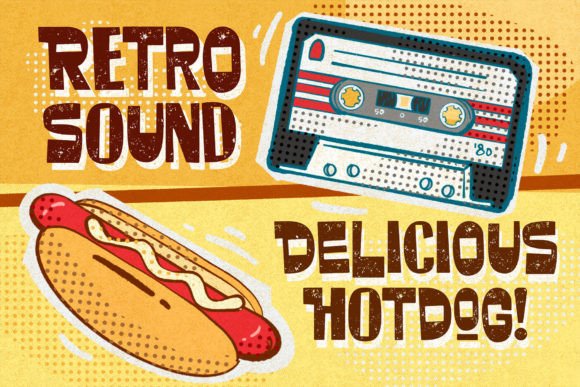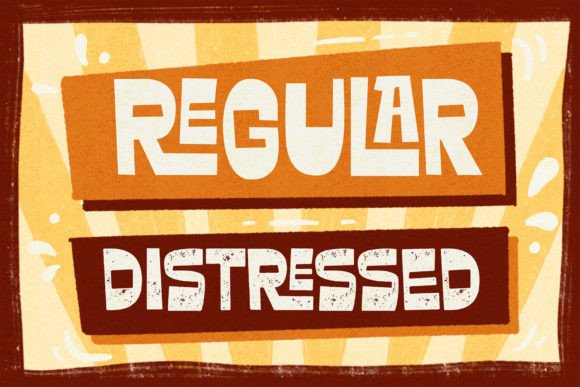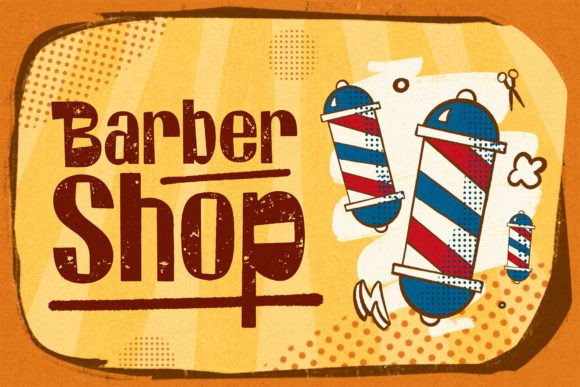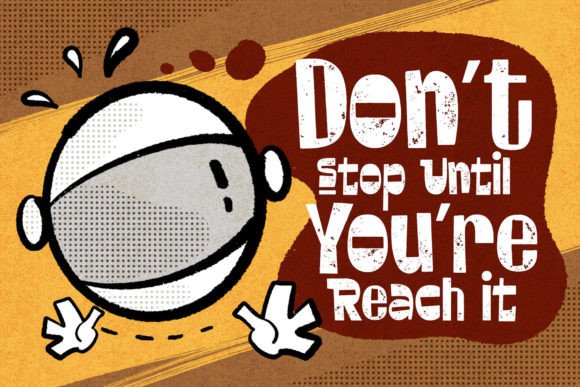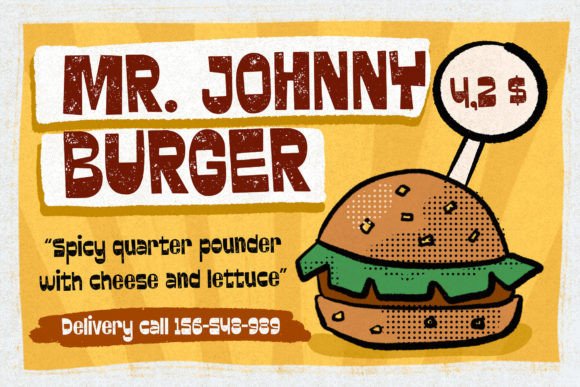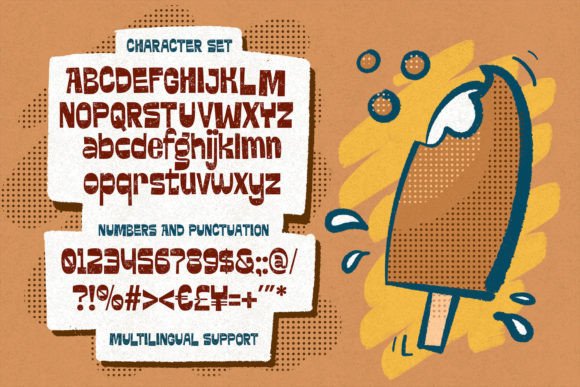
Introduction to Krenzy Crispy Font
Do you remember the excitement of unwrapping a new snack and being immediately drawn to the colorful packaging? The typography on those labels often stands out, doesn’t it? For designers, capturing that same playful vibe can be a challenge, but what if you had a font that embodied the fun and energy of snack packaging?
Enter Krenzy Crispy Font, a high-quality display font that’s sure to add a pop of personality to your creative project. With its crunchy texture and retro feel, this font is perfect for designers looking to create eye-catching designs for food packaging, posters, comics, and more.
Key Features of Krenzy Crispy Font
- High-quality font with a crispy texture, perfect for creative projects that require a unique aesthetic.
- Unique characteristics include a bold, modern design and a range of customizable options, making it perfect for creative projects.
Honest Review: Krenzy Crispy Font
I recently stumbled upon the Krenzy Crispy Font while searching for a free download to spice up a creative project. The first thing that caught my eye was its sleek, modern design, perfect for any high-quality design resource.
The font’s transparent background is a big plus, as it allows for seamless integration with any background image or color scheme. I found it easy to customize and experiment with different font sizes and styles to get the desired effect.
- High-quality design with a modern twist
- Easy to customize and experiment with different styles
- Limited character set, may not be suitable for long-form text
- No bold or italic font weights, may require additional styling
Overall, I’m impressed with the Krenzy Crispy Font. It’s a great addition to any design resource, and its modern design makes it perfect for creative projects. With a little creativity, it can be used in a variety of ways, from logos to headings and more.